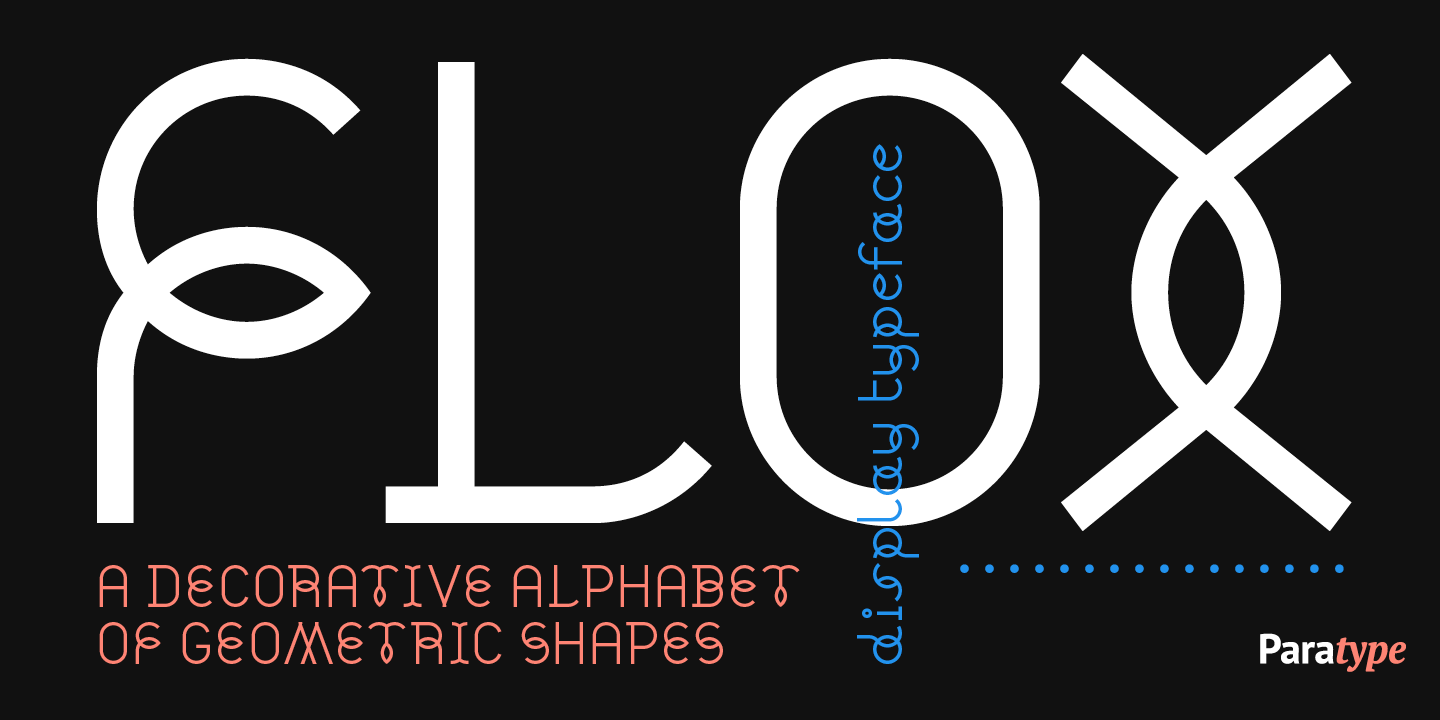
Flox Font is perfect for dynamic tech startups, innovative app interfaces, modern digital branding, creative agency communications, forward-thinking marketing campaigns, contemporary web design, progressive business identities, and cutting-edge product launches. This fluid typeface excels in applications requiring movement and innovation that captures the essence of digital transformation and technological advancement through energetic visual character and modern appeal.
What makes Flox Font exciting is its dynamic flow that perfectly embodies themes of innovation and digital fluidity through organically flowing letterforms that suggest constant evolution. The font features streamlined character construction with fluid movement and contemporary presence that instantly conveys themes of progress, adaptability, and technological advancement perfect for brands embracing digital transformation and innovative market positioning.
The Flox Font family includes multiple flow variations and dynamic styling elements, offering designers comprehensive tools for creating fluid contemporary compositions. The family provides consistent flowing aesthetic with varying movement intensity for versatile digital communications and innovative branding projects requiring genuine technological character and progressive market appeal.
The fluidly engineered letterforms of Flox Font ensure optimal performance across all digital platforms while maximizing dynamic appeal and innovative character, making it ideal for responsive web design, mobile applications, and contemporary digital communications. This versatile typeface combines technological fluidity with modern design standards for outstanding performance in digital environments requiring authentic innovation character and progressive technological presence.